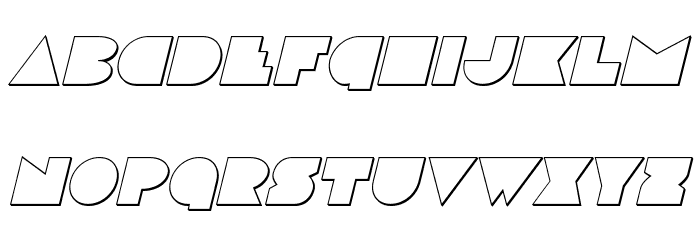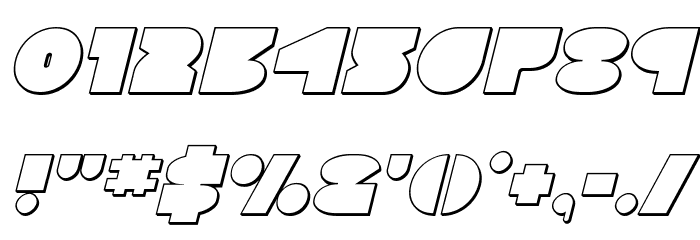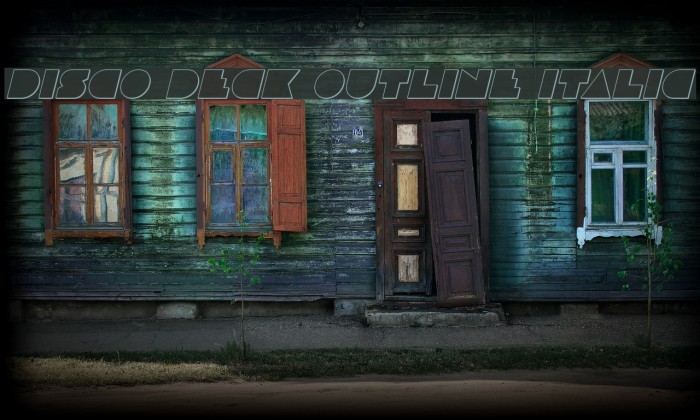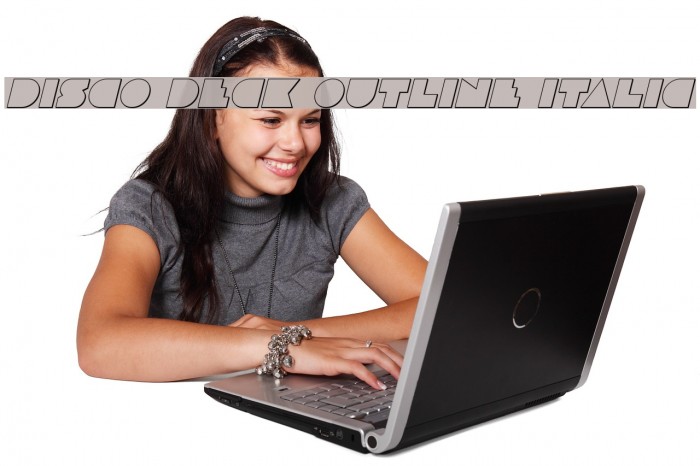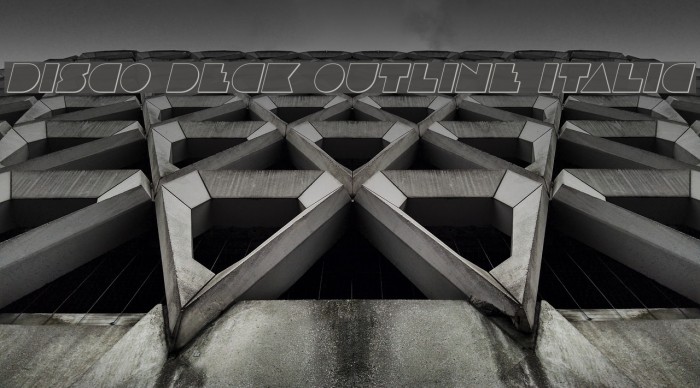
Disco Deck Outline Italic Font
This font features a bold, geometric design with an outline style that gives it a distinct, futuristic appearance. The characters are constructed with sharp angles and straight lines, creating a dynamic and energetic look. The italic slant adds a sense of motion and modernity, making it ideal for projects that require a contemporary and edgy feel. The uppercase and lowercase letters maintain a consistent style, while the numerals and special characters complement the overall aesthetic. This font is perfect for creating eye-catching headlines, posters, and branding materials that need a bold statement.
A bold, geometric outline font with an italic slant, perfect for modern and dynamic designs.
- Proposed Projects: Ideal for futuristic branding, event posters, album covers, and digital media projects.